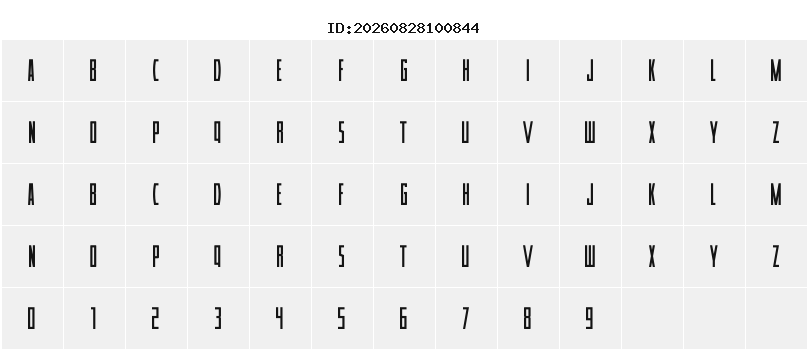
Tower Preview
• Font Name: Tower
• Full Font Name: Tower
• Designer: Júnior Souza
• Manufacturer: Júnior Souza
About Tower.ttf
Tower.ttf is a modern, elegant sans-serif font designed for ultimate readability and visual harmony. Perfect for branding, headlines, web design, and print materials.